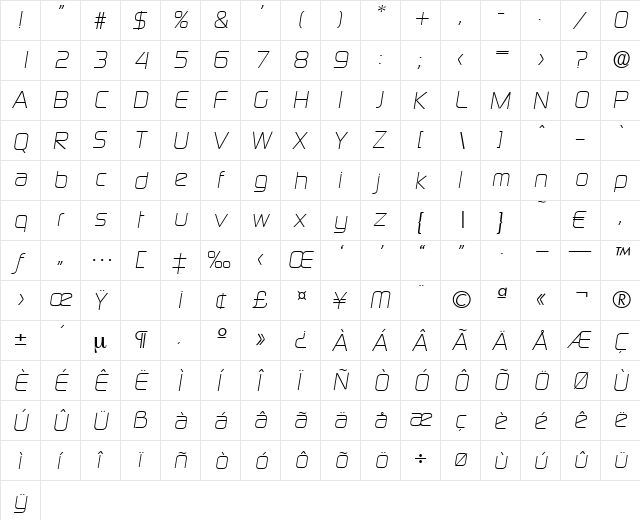
Digital-LightIta Regular
Design Context for Digital-LightIta Typeface
Digital-LightIta channels digital-age aesthetics through its sharp, structured letterforms — ideal for brands that want to signal innovation. Its slender proportions lend an understated elegance to any composition.